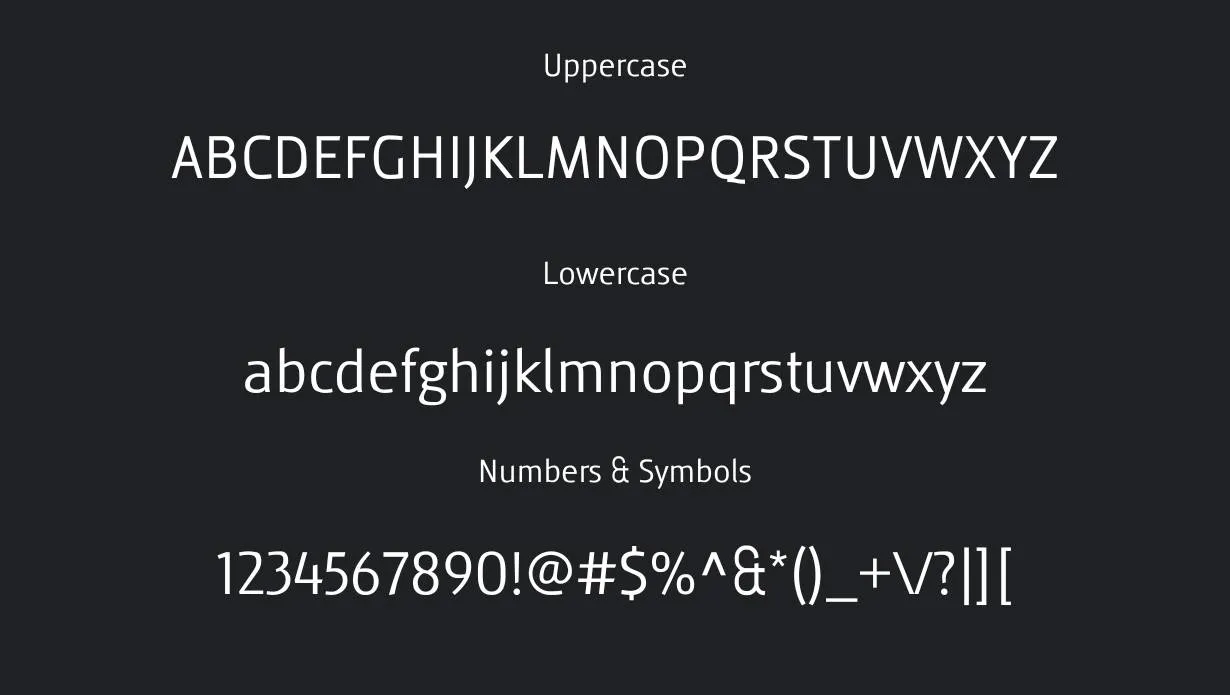
Ankle Font is a friendly and lively typeface, recognized for its cheerful and playful appearance. Its flowing design and animated style make it an excellent choice for children’s books, party invitations, and creative designs.
| Name | Ankle Font |
| Designer | Vikers |